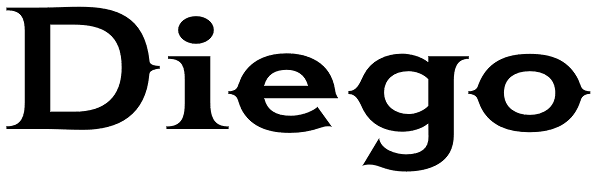
Diego
Diego was originally produced as a custom font for the San Diego Padres broadcast graphics package. I was imagining Copperplate Gothic dressed in a black linen suit sipping Cuervo gimlets in the pressbox at PETCO Park. Diego is fitted with a fairly...